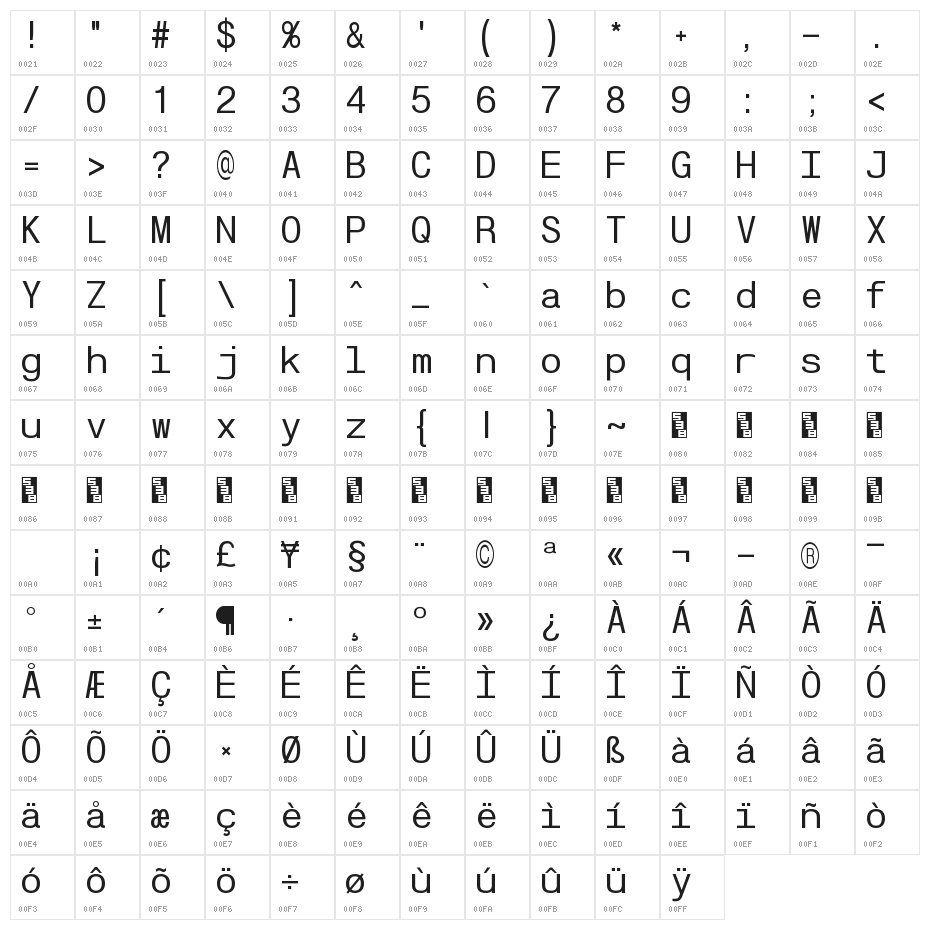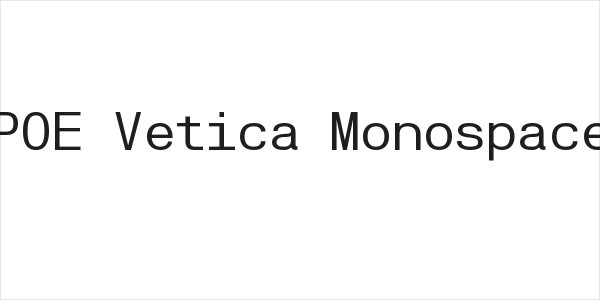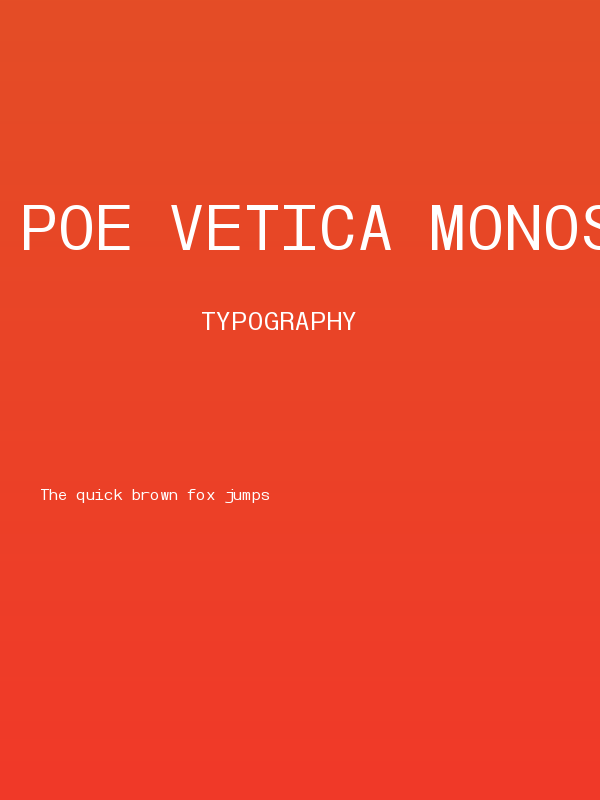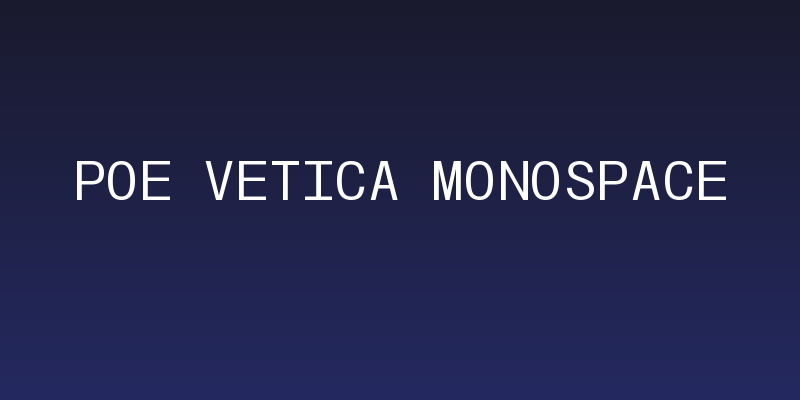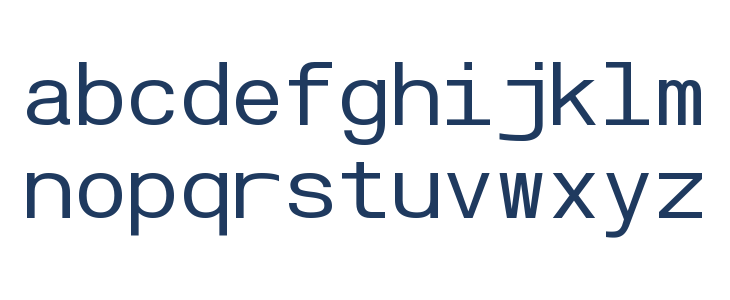
POE Vetica Monospace Font
POE Vetica Monospace Description
This font is a clean and modern monospaced typeface, characterized by its uniform spacing and consistent stroke width. Each character occupies the same amount of horizontal space, making it ideal for coding and tabular data. The design is minimalistic, with straight lines and a geometric feel, ensuring high readability. The uppercase and lowercase letters are distinct, with a slight variation in height that maintains clarity. Numerals are clear and easily distinguishable, which is essential for technical documentation. The special characters are well-defined, supporting a wide range of uses in digital and print media.
| Use Case | Coding, Technical documentation, Data tables |
| Proposed Projects | Ideal for coding environments, technical documentation, data tables, and any project requiring precise alignment. |